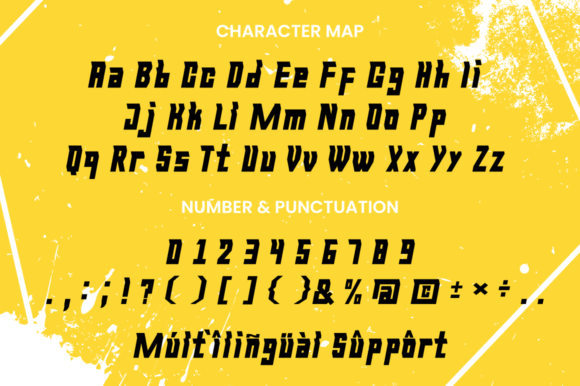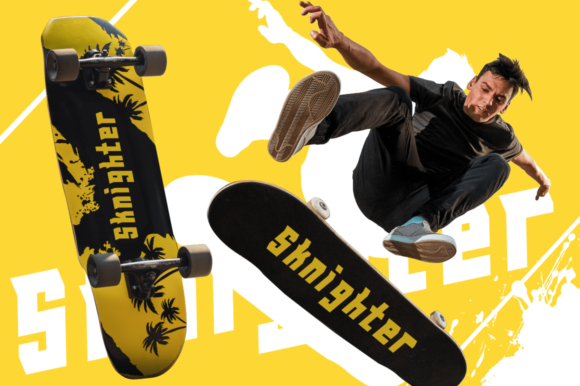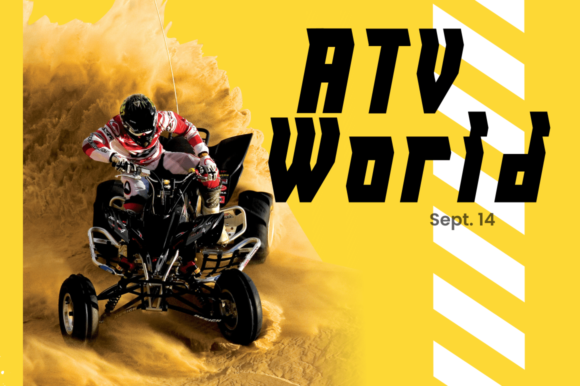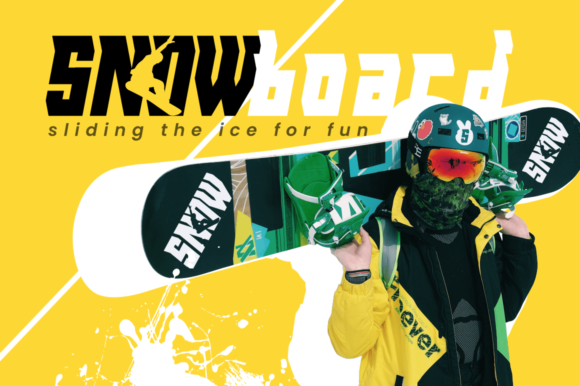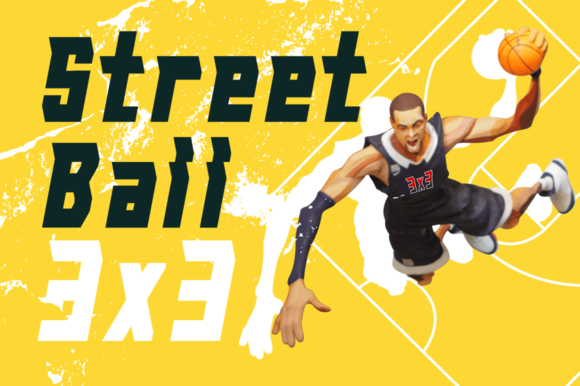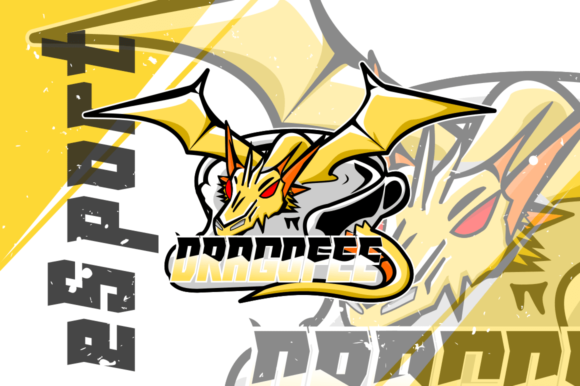
The Perfect Font for a Daring Design
Imagine you’re brainstorming ideas for a futuristic sci-fi movie poster, and suddenly, a spark of creativity hits you – you envision a bold, robotic font that screams ‘high-tech’ and ‘otherworldly’. This is the moment when the right font can make all the difference, elevating your design from ordinary to extraordinary.
This is where the Air Jetpump Font comes in – a unique, imposing display font that’s sure to give your creations a distinct touch. With its uniquely shaped letters, this font is perfect for designers who want to add a touch of edginess to their work. Whether you’re designing a movie poster, a video game title, or a futuristic logo, the Air Jetpump Font is the perfect tool to help you achieve your vision.
Key Features of Air Jetpump Font
- Font Family: Air Jetpump Font is a sans-serif font family with 8 styles (Thin, Light, Regular, Medium, Bold, Extra Bold, Black, and Outline)
- Size: The font family contains 800+ glyphs, including Latin, Cyrillic, and Greek characters, as well as a range of punctuation and symbol glyphs
- Unique Characteristics: Air Jetpump Font features a unique blend of modern and industrial design elements, with a focus on clean lines, geometric shapes, and a strong x-height
Designer Review: Air Jetpump Font
I recently had the chance to play around with the Air Jetpump Font, and I must say it’s a font that’s both intriguing and flawed. ✨ The first thing that caught my eye was its unique, futuristic feel. The font’s sleek lines and minimalist aesthetic make it perfect for modern designs that need a touch of edginess.
Some of the strengths of the Air Jetpump Font include:
- ✨ Its versatility – the font can be used for a wide range of applications, from digital products to print materials.
- ✨ Its customizability – the font comes with a variety of weights and styles, allowing designers to fine-tune the look to their liking.
- ✨ Its readability – despite its futuristic feel, the font is surprisingly easy to read, making it a great choice for body text.
However, I did encounter some limitations with the font. ⚠️ For one, the font’s unique aesthetic can be a bit overbearing in certain contexts. It’s not suitable for every design project, and designers may find themselves struggling to make it work in more conservative or traditional settings.
Overall, I’d say the Air Jetpump Font is a solid addition to any designer’s toolkit. While it may not be perfect, its unique strengths make it a great choice for designers looking to add a bit of flair to their projects.
Introduction to Air Jetpump Font
The Air Jetpump font is ideal for:
* Digital signage and displays
* Branding and marketing materials
* Graphic design and typography projects
* Presentations and reports